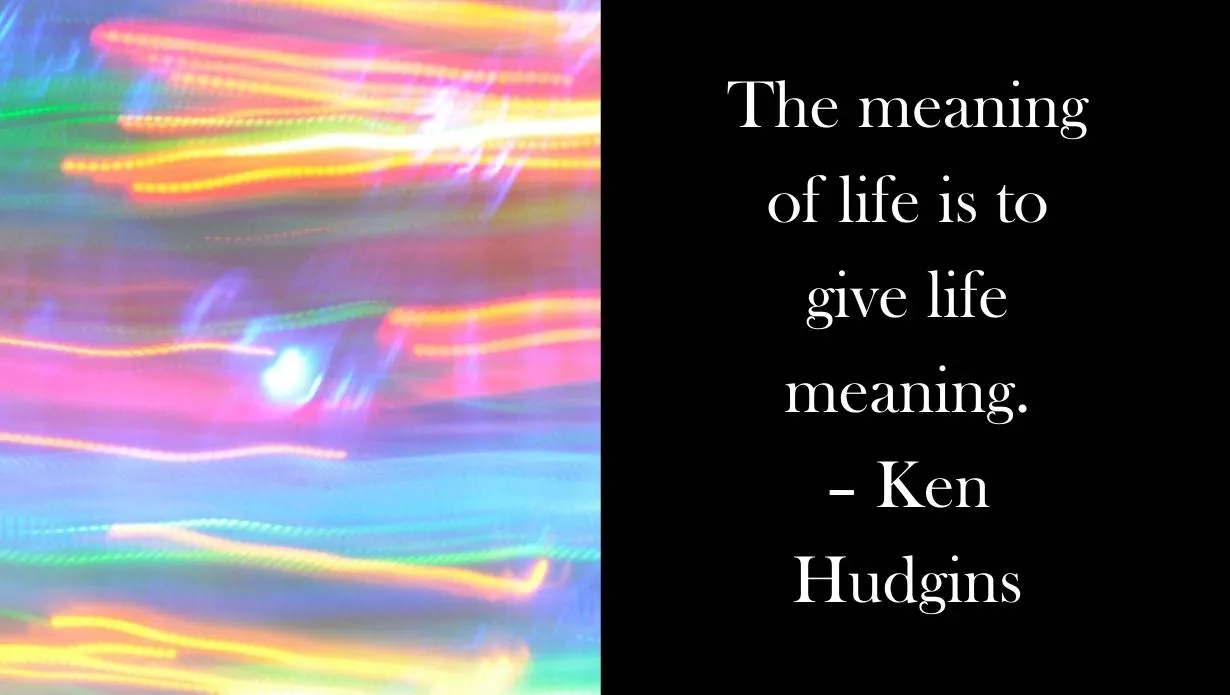
Today we present an attractive typeface that goes by the name Lancome Logo Font. Armand Petitjean is the main developer of this font family. This cozy typeface belongs to the Serif typeface. This amazing typeface is best for Adobe and CorelDRAW.
Lancome Logo Font is widely used in various design projects. Because of its unique features, this font is perfect for web designing, print media, and logo design. This family consists of two styles including Regular and Bold. All of these styles contain TrueType features. Oranienbaum font is similar to this typeface.
Name | Lancome Logo Font |
Designer | Armand Petitjean |
Style | Serif |